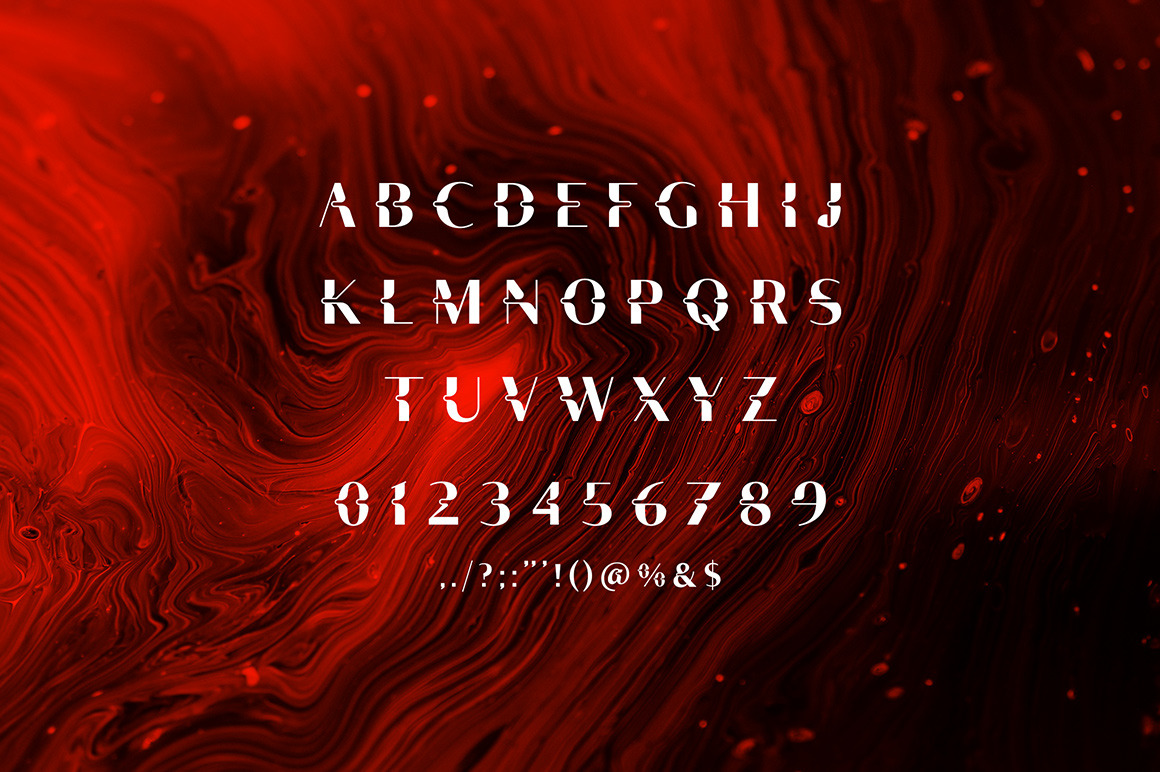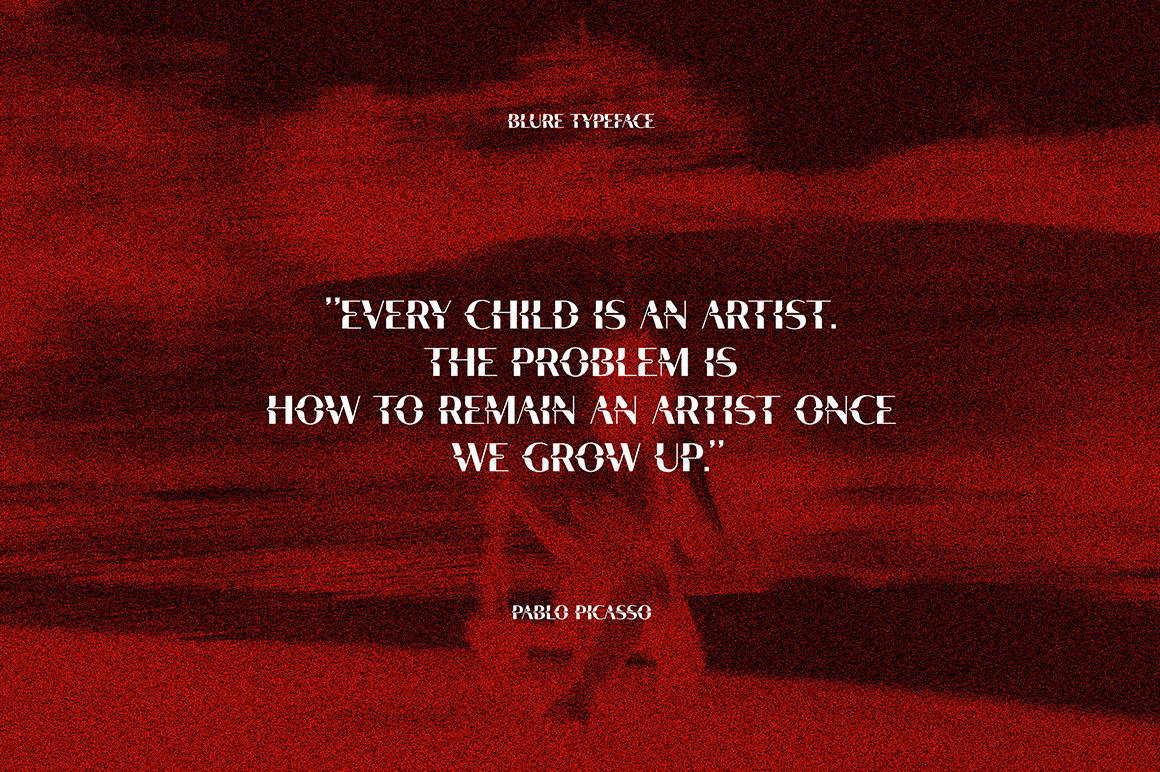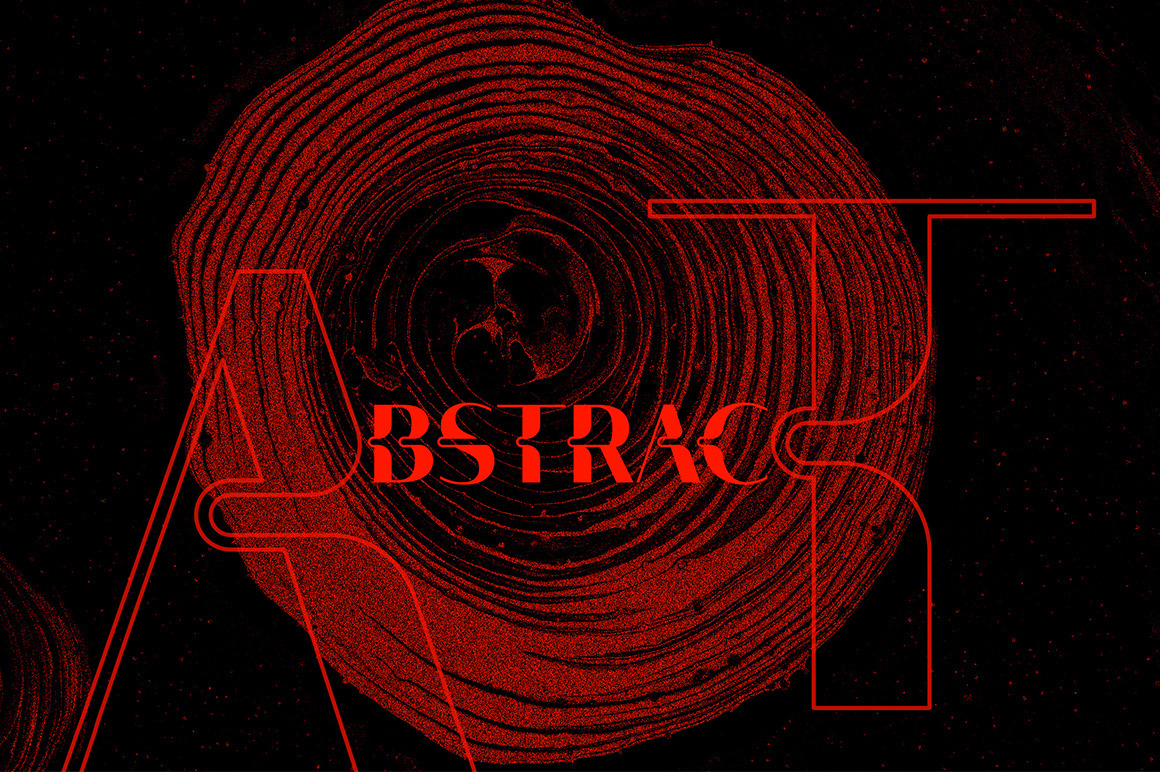
Blure - Display Font
Bluray is a font inspired by several abstract and wave paintings. This font is also suitable for Clothing Brands, StreetWear, Product Labels, Logo Types, Packaging, Fashion, and more.
Main Features:
+ Uppercase Only
+ Numbering and Punctuation